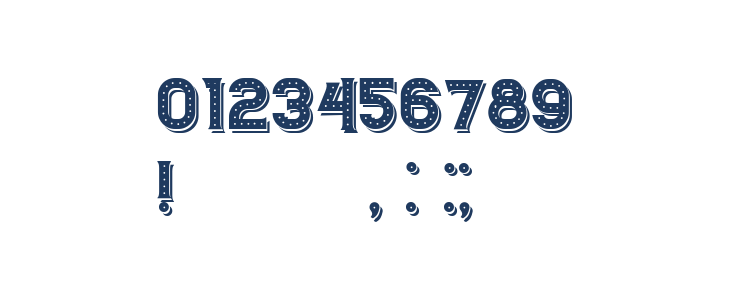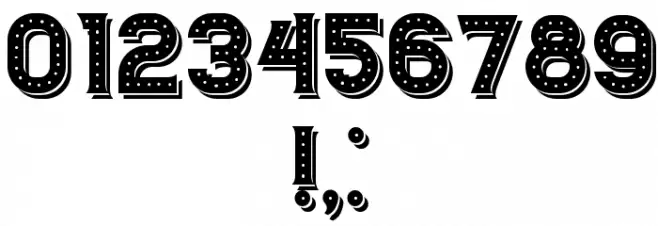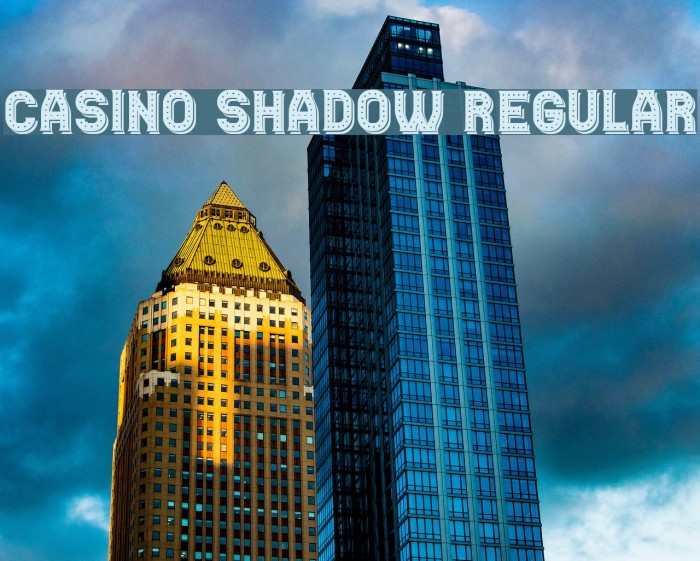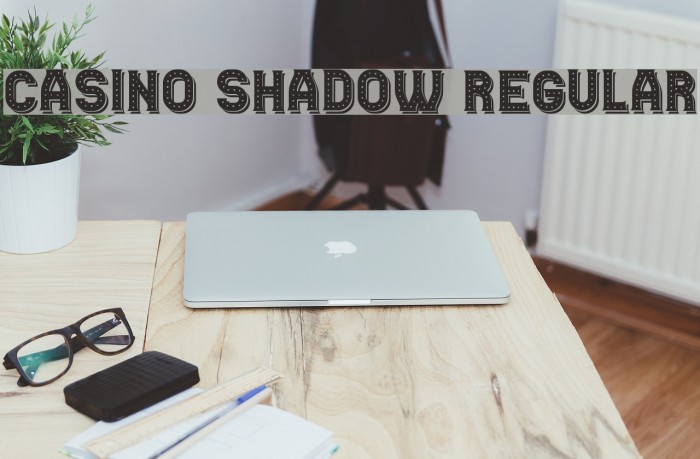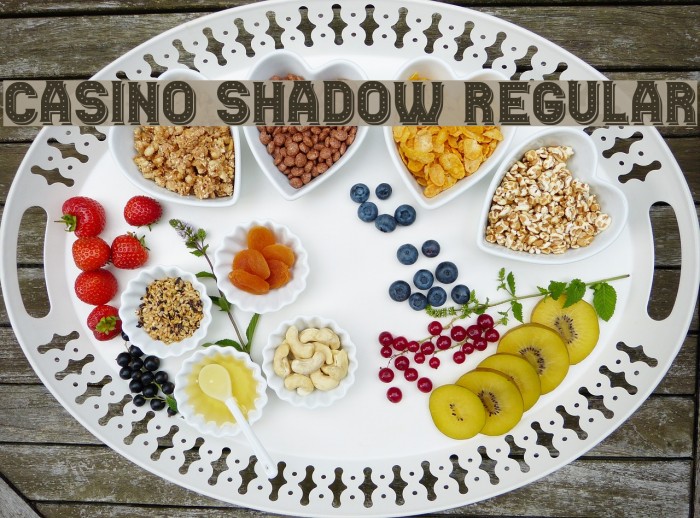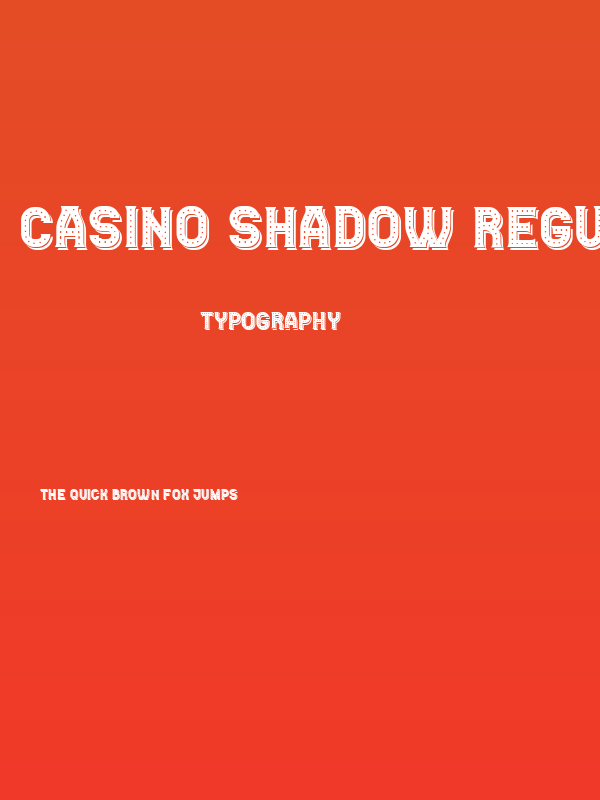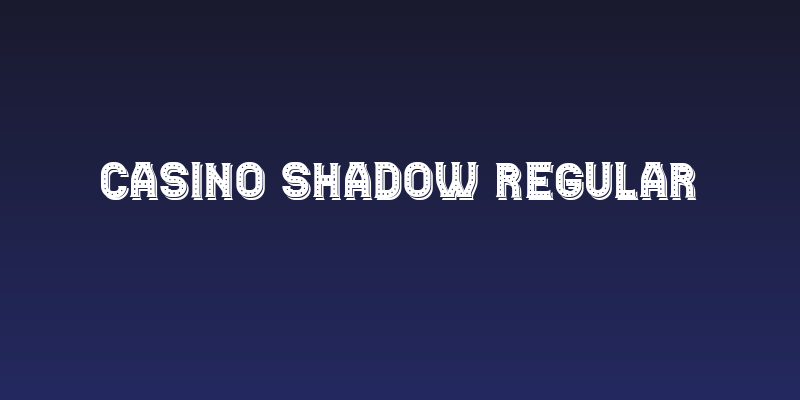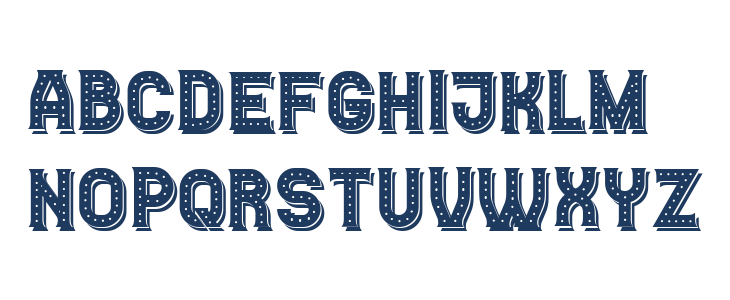
Casino Shadow Regular Font
Casino Shadow Regular Description
This font features a bold, decorative style with a shadow effect that gives it a three-dimensional appearance. The characters are outlined with a dotted pattern, adding a playful and eye-catching element. The uppercase letters are uniform in height, while the numbers and special characters maintain the same decorative theme. The overall design is reminiscent of vintage casino signage, making it ideal for projects that require a touch of retro flair. The font's unique style makes it stand out, perfect for creating striking headlines or logos.
| Proposed Projects | Perfect for casino-themed events, retro posters, vintage branding, and eye-catching headlines. |